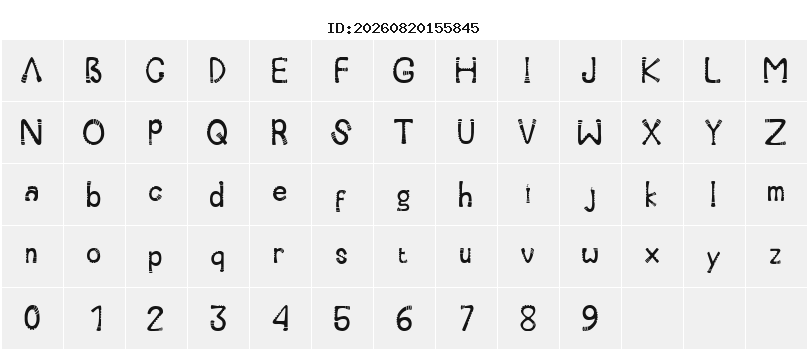
• Font Name: Serunaitype
• Full Font Name: Serunaitype Regular
• Designer: Arnoldus Johan
• Manufacturer: PYRS Fontlab Ltd. / Made with FontLab
• Description: Serunaitype Regular is a font by PYRS Fontlab Ltd. / Made with FontLab, designed by Arnoldus Johan in 2014.
About Serunaitype.ttf
Serunaitype.ttf is a modern, elegant sans-serif font designed for ultimate readability and visual harmony. Perfect for branding, headlines, web design, and print materials.